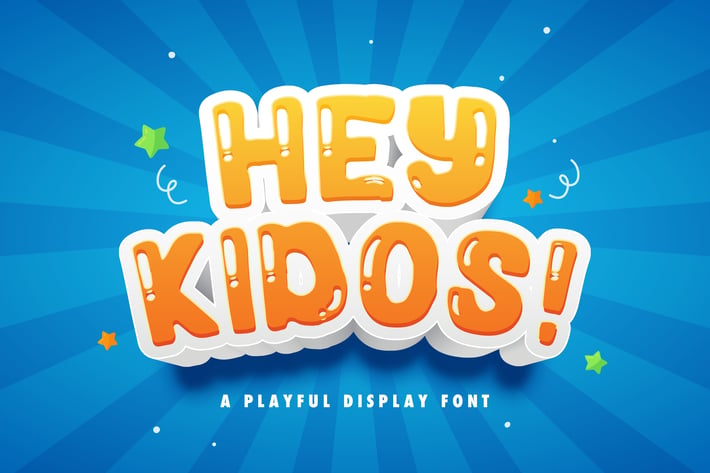
Hey Kidos! - Playful Display Font
Introducing Hey Kidos! - Playful Display Font
Hey Kidos! is a cute and quirky display font. It will add an incredibly joyful touch to your designs. Add this beautiful display font to each of your creative ideas and notice how it makes them stand out!